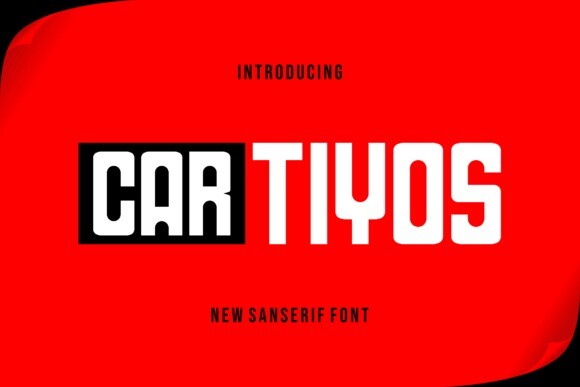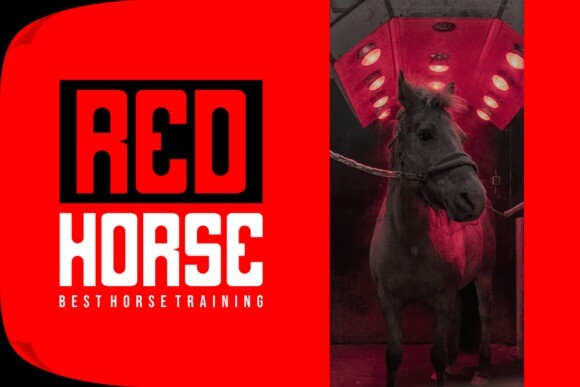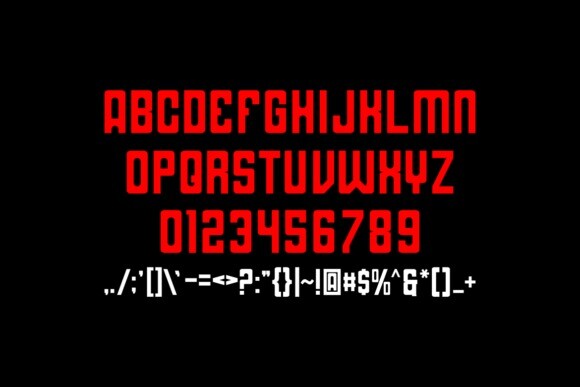
Cartiyos Font
**Cartiyos Font** – Modern Font is a bold and authentic display font. The font is suitable for any branding project like logo, t-shirt printing, esport, and many more. outstanding in a wide range of contexts.